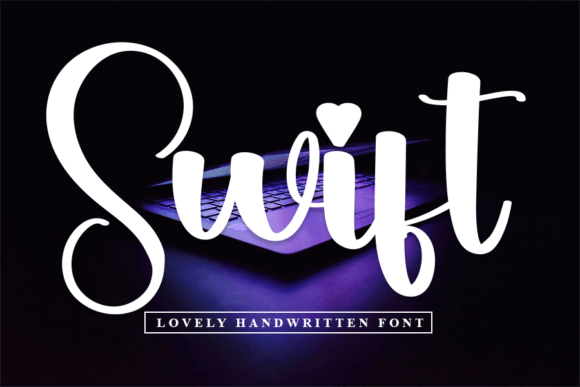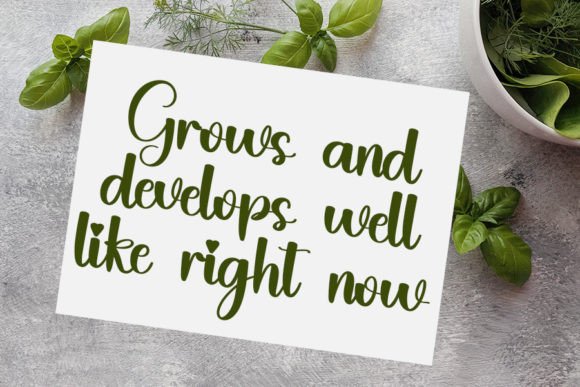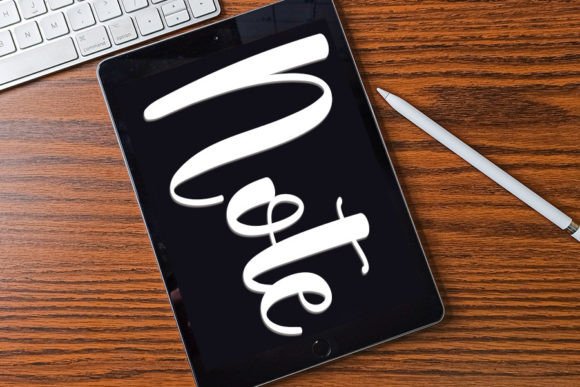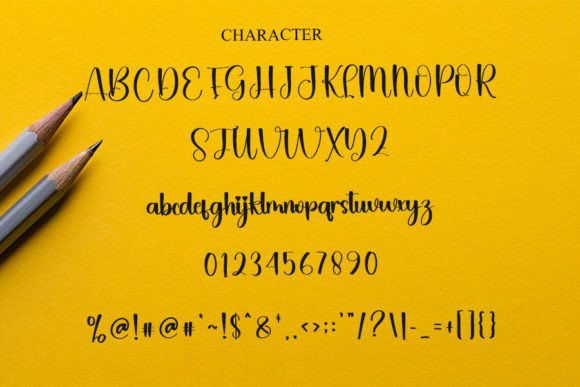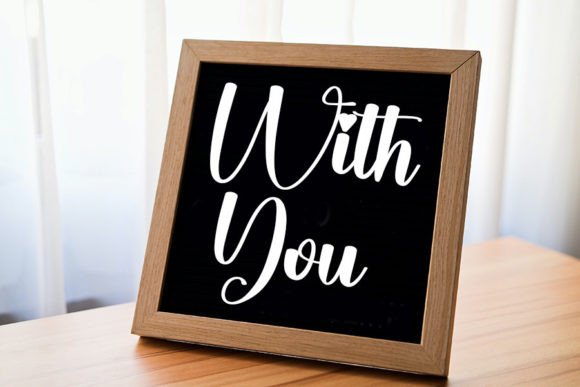
Swift Font
A Trendy and Elegant Handwritten Script
Swift is a modern handwritten font inspired by the timeless beauty of classic calligraphy. With smooth curves and a balanced design, it feels fresh yet familiar. This font is crafted to bring sophistication and personality to every project.
Whether you’re working on branding, wedding stationery, or digital graphics, Swift ensures your designs stand out with style and elegance.
Swift is a versatile font you’ll reach for again and again. It’s ideal for wedding invitations, save-the-date cards, and thank you notes. The graceful script creates a romantic, warm mood that makes every occasion feel special.
For branding, Swift shines on logos, business cards, and product packaging. Its clean handwritten style helps your brand look premium and approachable, leaving a lasting impression.
This font is also great for quotes, greeting cards, and custom gifts. The smooth, flowing letters add an authentic, personal feel to any message.
On social media, Swift keeps your visuals consistent and polished. Whether you’re posting announcements or sharing inspiration, this font ensures your content looks professional and eye-catching.
Despite its artistic design, Swift remains clear and legible in any size. The balanced spacing and smooth connections between letters keep your text easy to read, from large headlines to small captions.
For a clean, modern look, pair Swift with a minimalist sans-serif font. Use Swift for titles and featured text, and the sans-serif for supporting details. This combination creates a layout that feels organized, elegant, and fresh.
To highlight Swift’s stylish details, use soft color palettes and simple backgrounds. Shades like ivory, blush pink, and muted gray help the font stand out without overpowering the rest of your design.
When creating wedding materials or event signage, consider adding delicate borders or light illustrations to complement the handwritten feel.
On social media, embrace white space and clean layouts so your text stays the focus.
Think about the mood you want to create. Swift is perfect for projects that should feel timeless, sophisticated, and welcoming.
Swift isn’t just another handwritten script—it’s a creative asset that elevates any design with elegance and charm. From professional branding to personal keepsakes, this font adapts effortlessly to any project and adds a special touch that feels refined.
Adding Swift to your font library ensures you always have a stylish, versatile option ready to go. Whether you’re working on logos, wedding invitations, or social media posts, this font makes every design feel unique and beautiful.